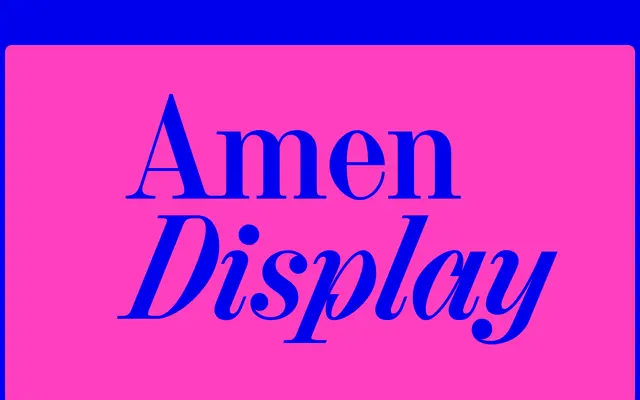
Amen Display
Hungarumlaut · Adam Katyi · 2018
A display serif by Adam Katyi, revived from a c.1906 Lettergieterij Amsterdam specimen and a 1904 prayer-book, with geometric details introduced in a thorough 2018 redraw.
The Medium weight originates in Halfvette Aldine, discovered in a Butzon and Bercker prayer-book set at 24pt, and developed through several years of revision at Type and Media before Katyi settled on a final direction. The 2018 redesign brought in geometric character details — horizontal terminals on the 2 and 7, vertical tails on the a, t and R — while the true italic lowercase retains a hand-written construction with inbound curves on rounded letters. Serif heights remain consistent across all six weights, and the family is recommended at 24pt minimum, with a text optical size planned for a future expansion.
A revival of a late nineteenth-century serif with geometric detailing introduced in the 2018 redraw; the horizontal strokes on numerals and distinctive tail forms place it firmly in the display serif tradition with humanist-italic construction in the cursive cuts.